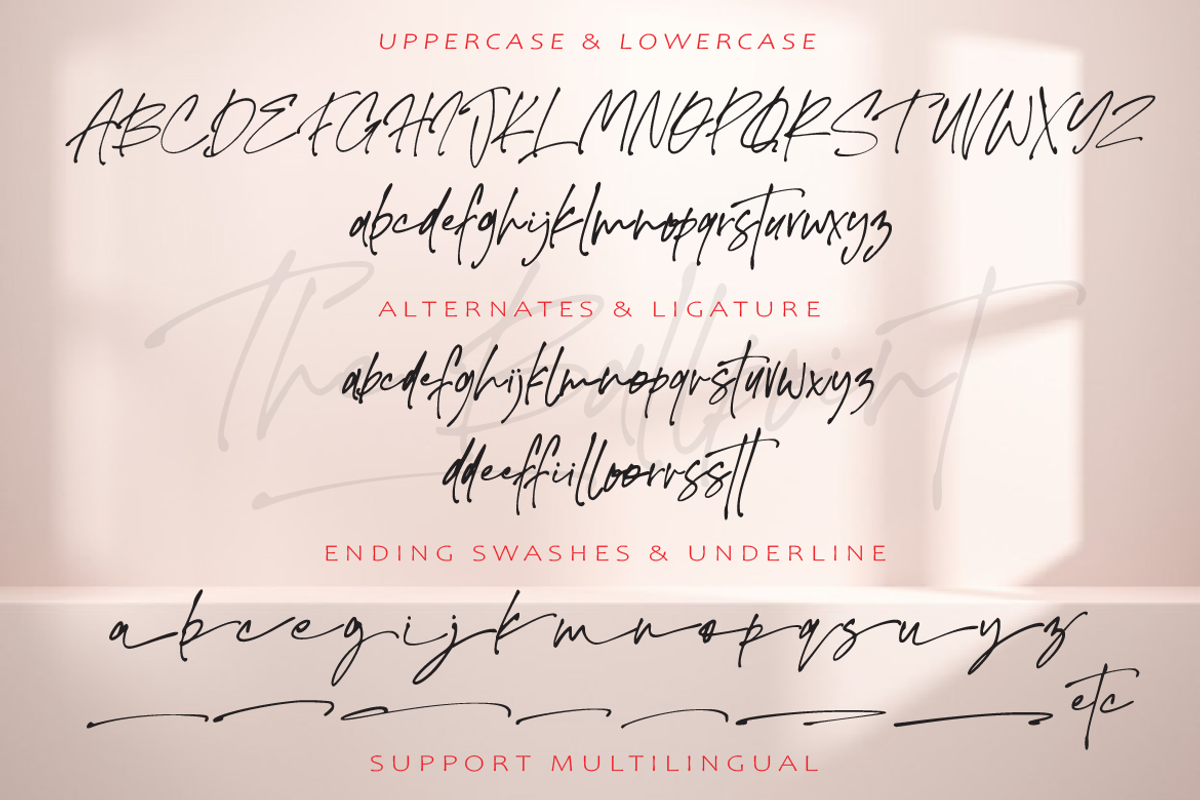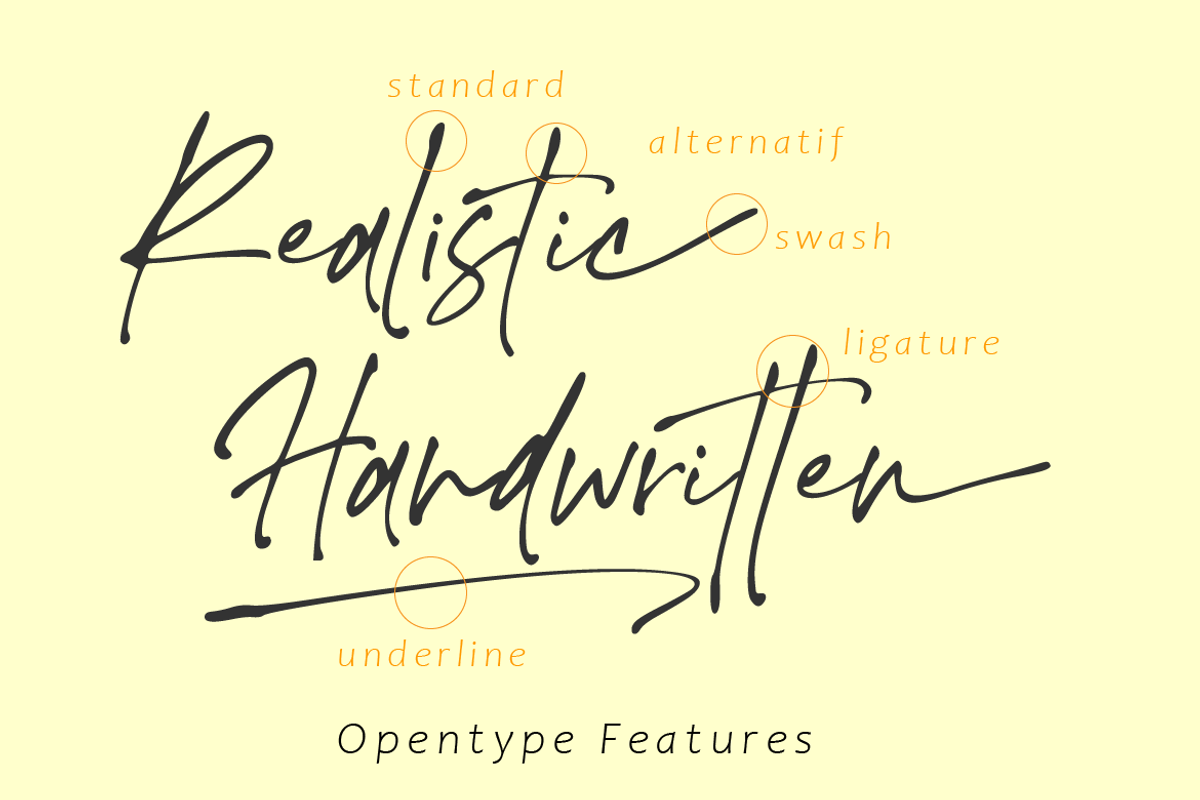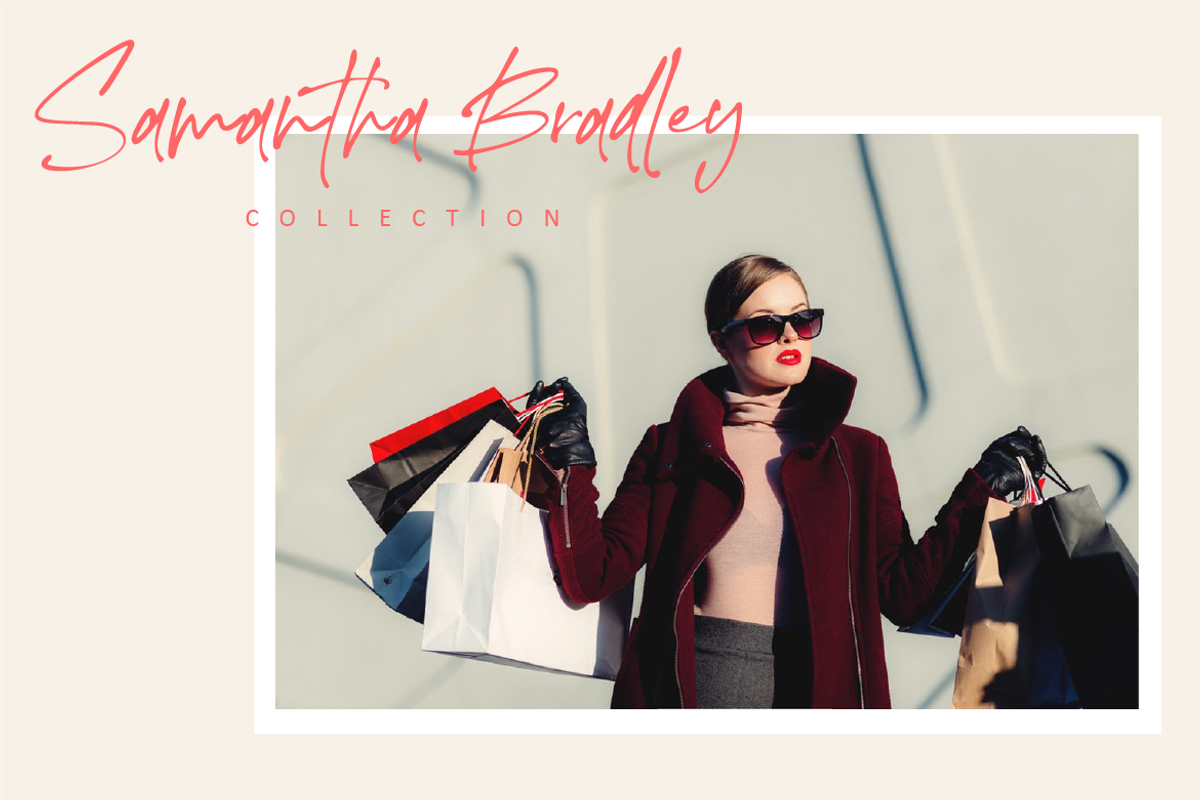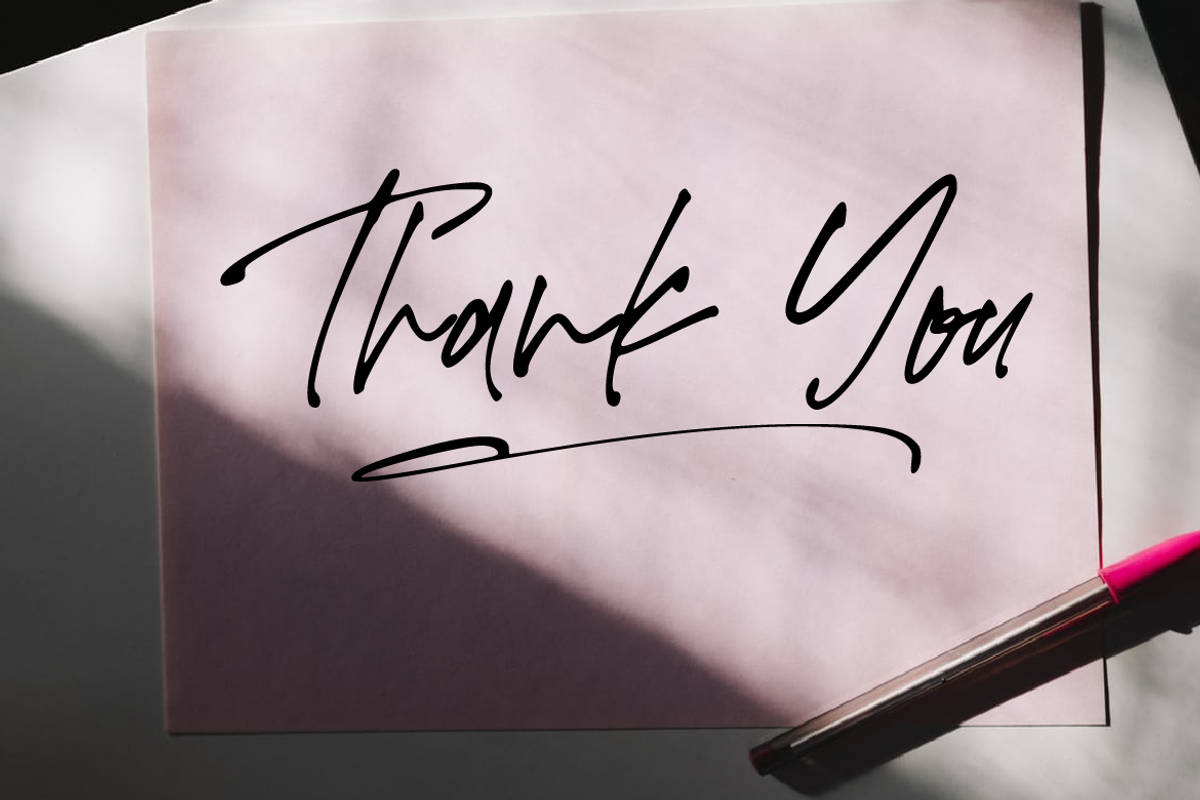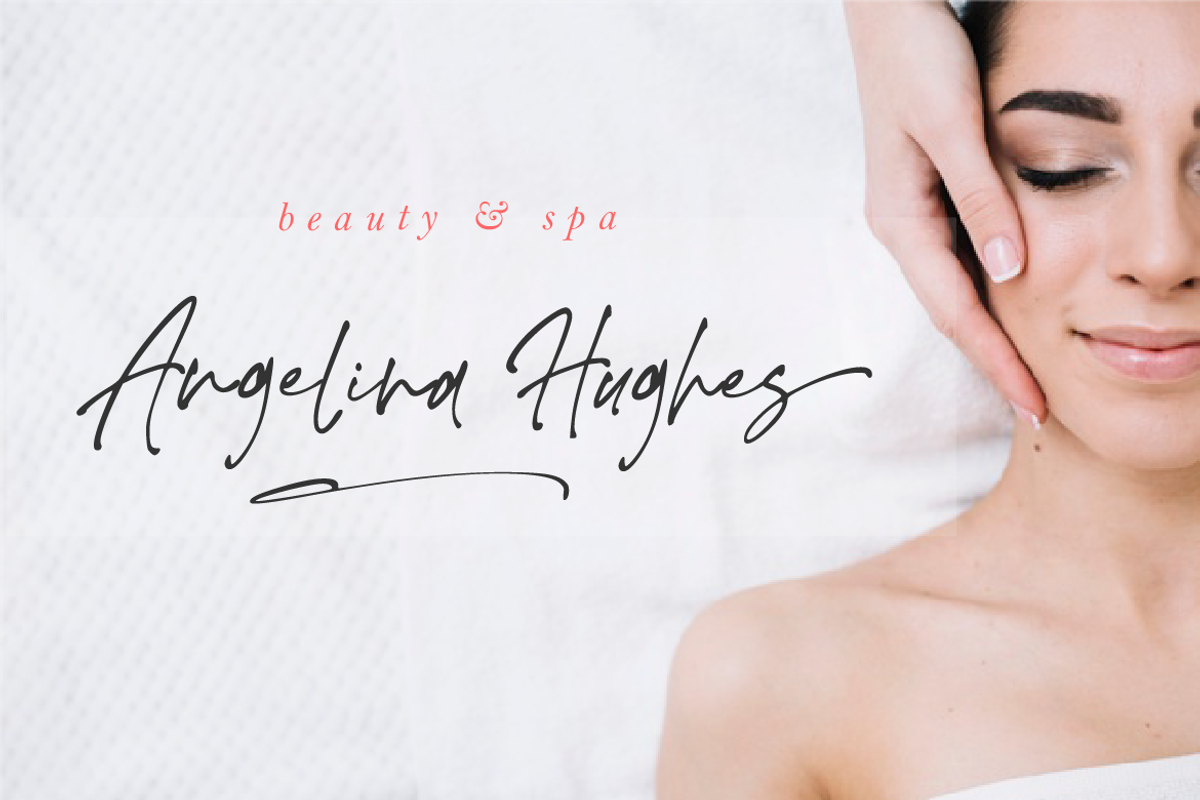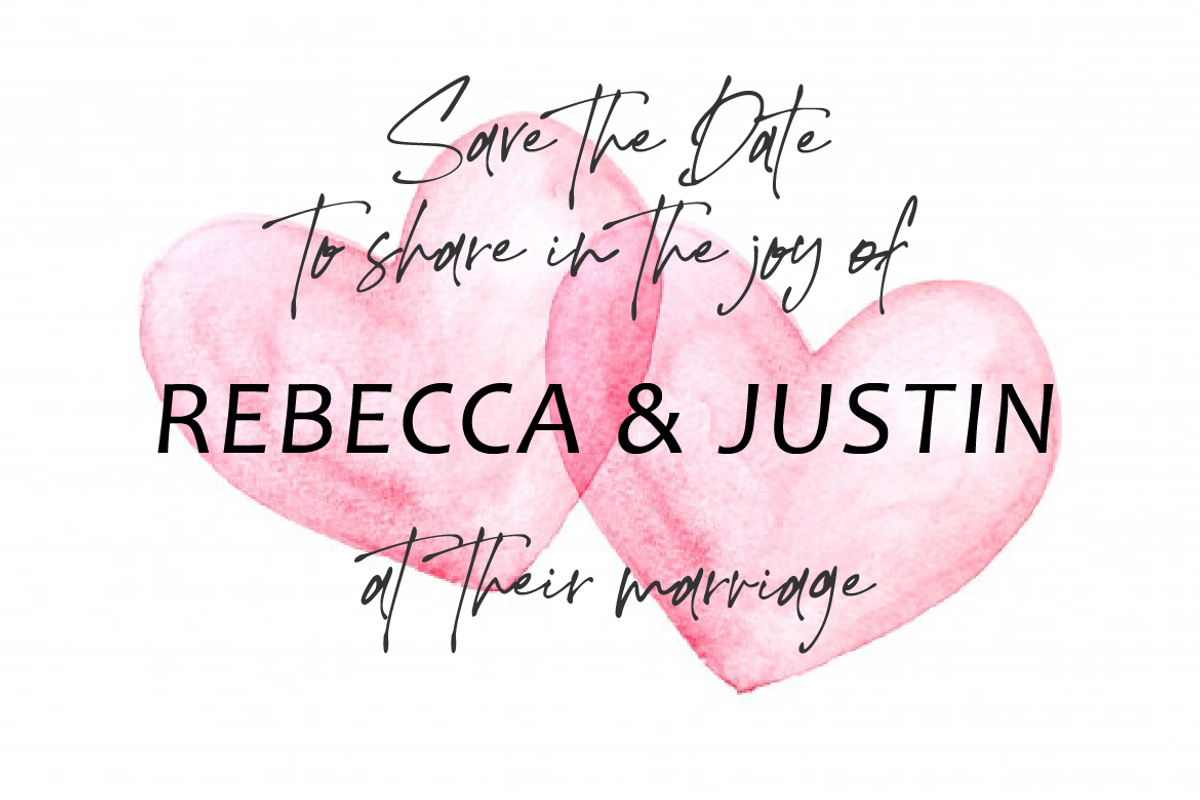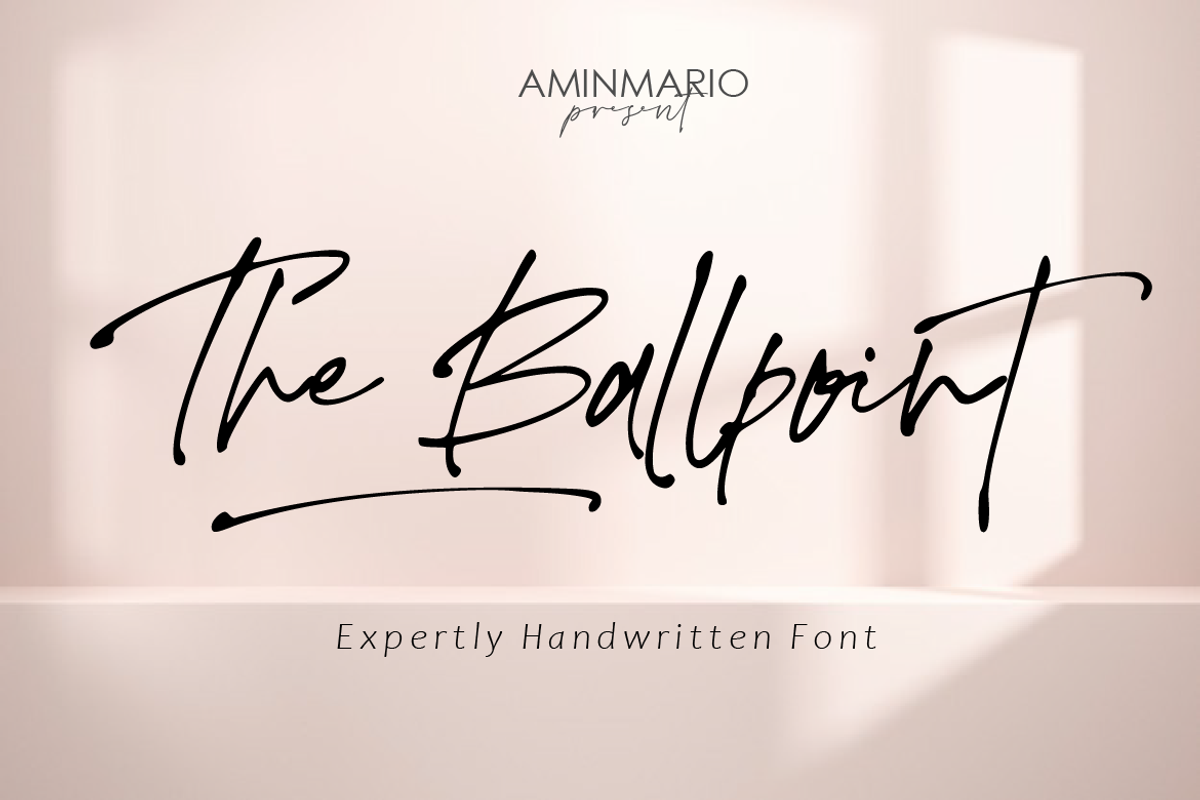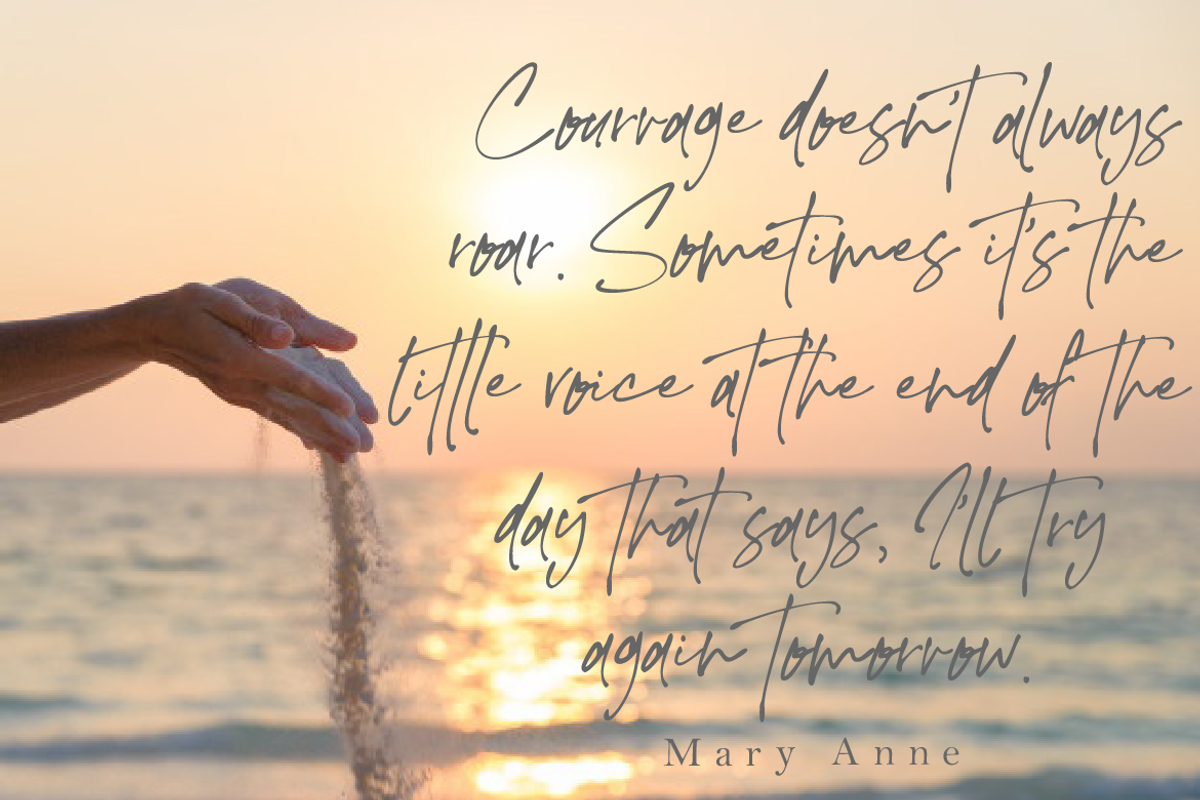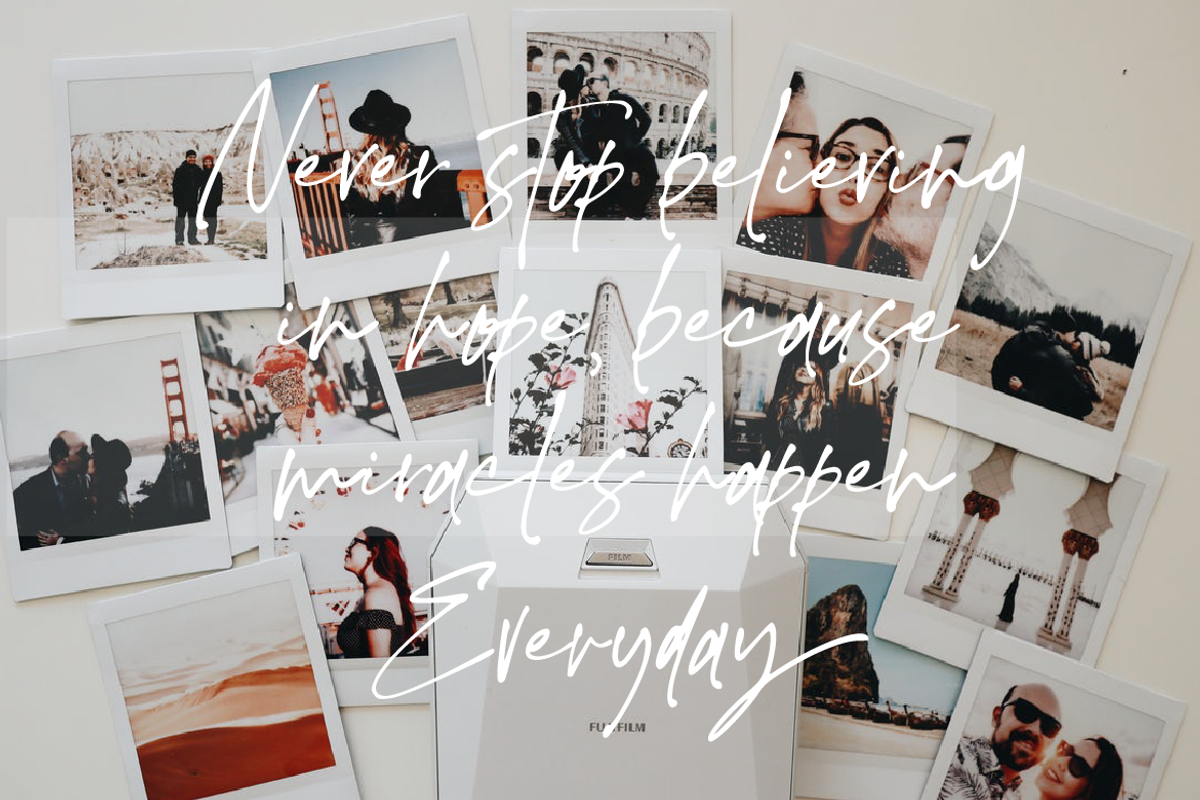
The Ballpoint
Introducing The Ballpoint Font
The Ballpoint font was created to look as close to a natural handwritten script as possible by including lowercase alternates, lowercase swash, ligature and underlines. Mix and match lowercase regular with several lowercase alternatives to get your new ligature. Perfect for any awesome projects that need hand writing taste.
With built in Opentype features, this script comes to life as if you were writing it yourself.
I have only tried The Ballpoint in Word so far, and I have not tried out any of the features, but so far I think it is a very nice font. It has a scribbly, dashed off look that I like and is close to looking like real handwriting. I would consider it about 98% legible, which is a pretty good percentage, though it may be that in Photoshop I can work with it a little more. One of my test words to try out a new font is "little", to see how the font handles multiple t's combined with an i and l. I would have to brush up on Word to find the glyphs, so I just opened Photoshop and I was able to easily space it and use the glyphs to get a nice look of the word. If I had to fuss about anything, it would be the lower case s, as in a block of writing it is mistakeable for a g. Other than that, I really like this font and its look on a page of typing.